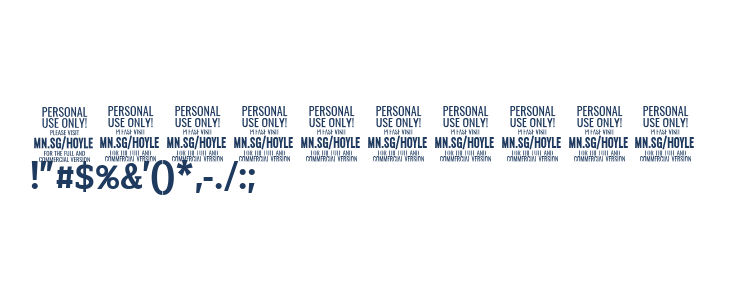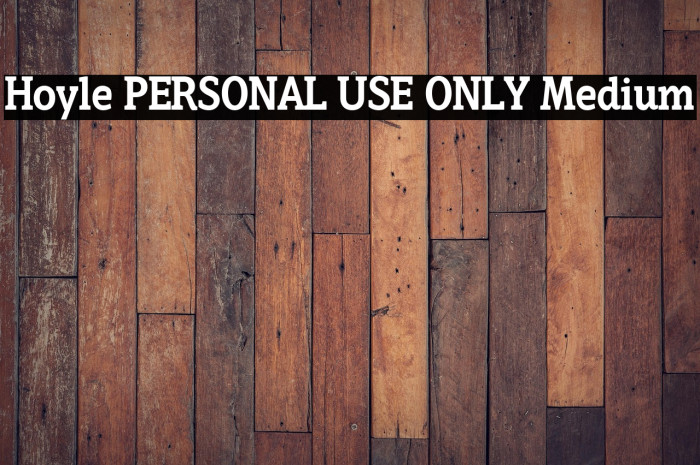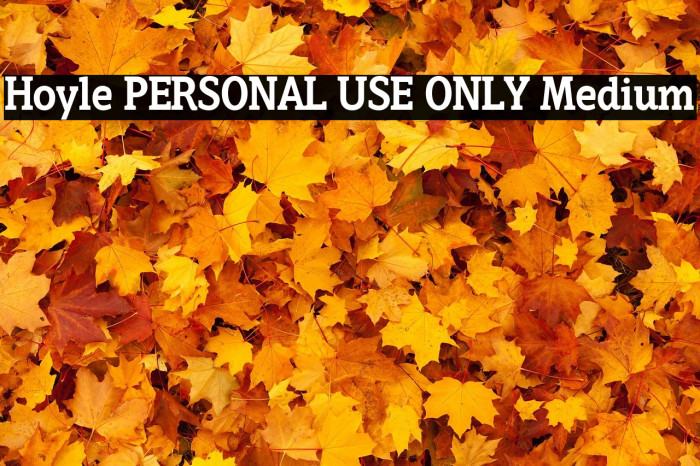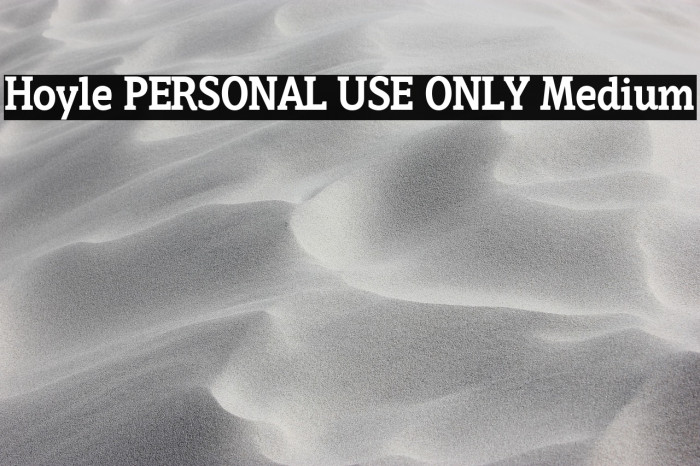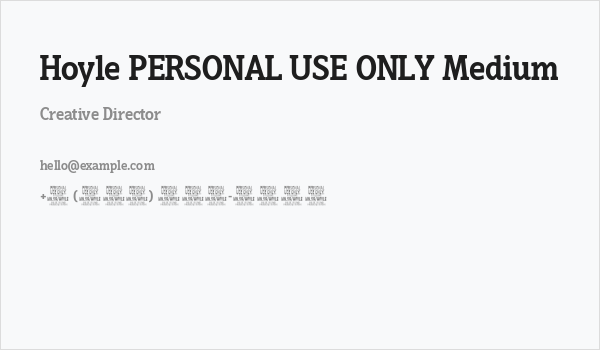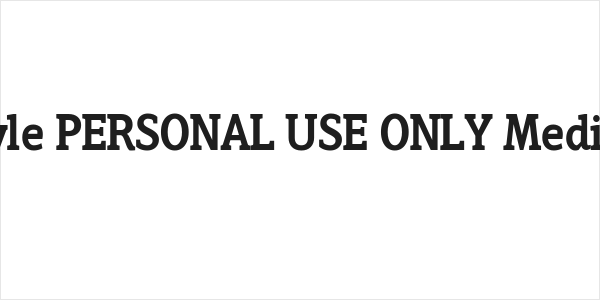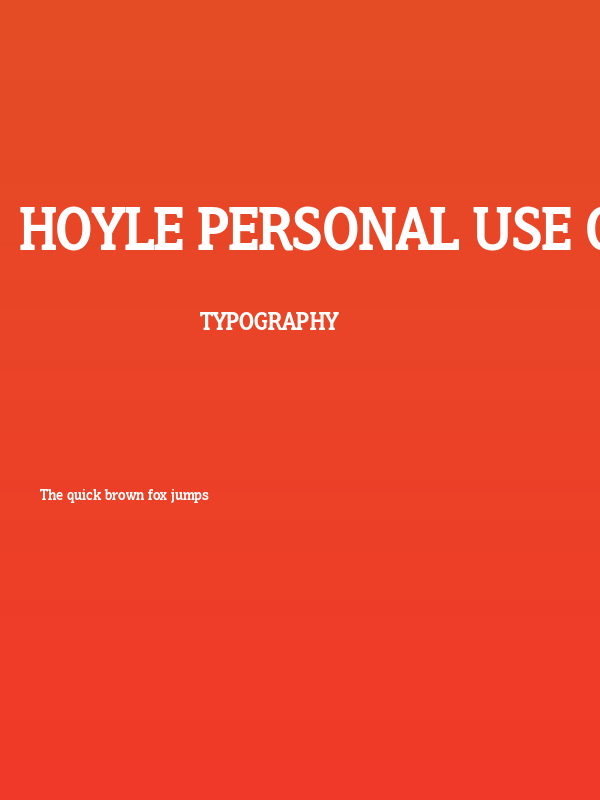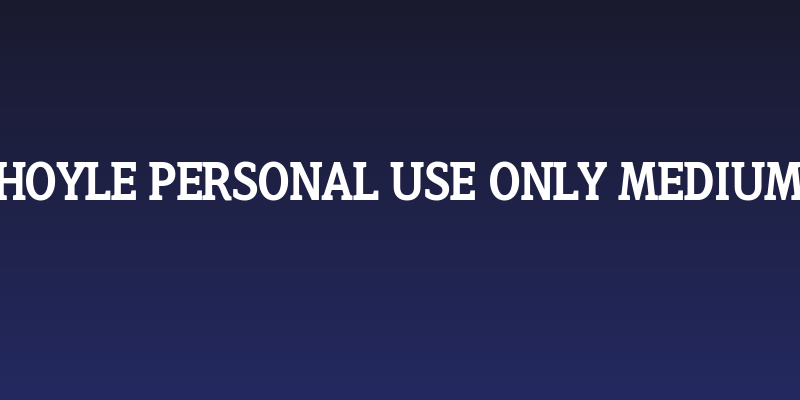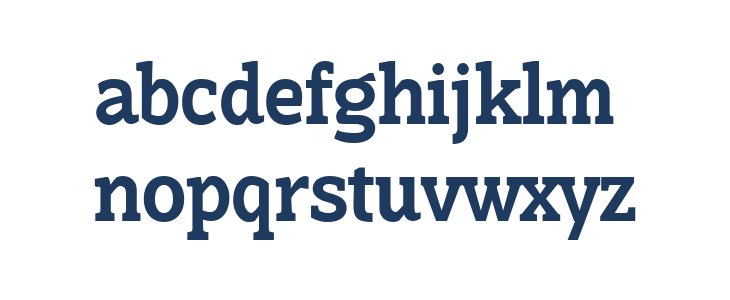
Hoyle PERSONAL USE ONLY Medium Font
Hoyle PERSONAL USE ONLY Medium Description
This font features a bold and robust serif style, characterized by strong, thick strokes and prominent serifs that give it a classic and authoritative appearance. The uppercase letters are tall and commanding, while the lowercase letters maintain a consistent weight, ensuring readability and balance. The numerals and special characters are designed with the same boldness, making them stand out effectively. This font's overall design is reminiscent of traditional print, yet it carries a modern touch that makes it versatile for various applications.
| Use Case | Headlines, Logos, Editorials |
| Proposed Projects | Ideal for book covers, editorial headlines, branding materials, and formal invitations. |